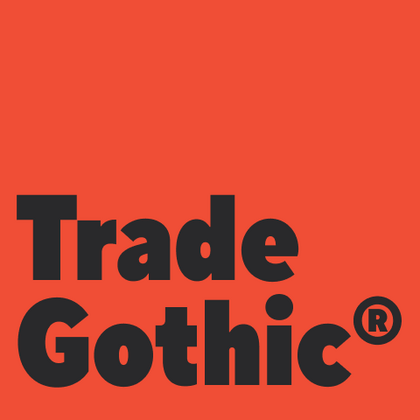
Fonts similar to Trade Gothic
In the TypeType collection, you’ll find professional fonts that can be an excellent alternative to Trade Gothic® for various design projects. Trade Gothic® is known for its functionality, and our designs provide the same level of quality and practicality. We created these fonts as independent products that meet modern typography standards. For corporate branding, publishing, or interface design, we have the ideal solution. All fonts are designed with attention to detail and are ready for professional use.
If you are tired of overused typefaces and are looking for fonts similar to Trade Gothic, check out our best free-to-try Trade Gothic alternatives, which have similar characteristics as well as new, unique design features. Some of the fonts belong to the same type category, and others are suitable for the same tasks or have similar traits but stand out for their distinct details or proportions.
Find a great Trade Gothic replacement font and try to recreate a similar mood and capture the feeling you aim for by using it in your designs. Each font presented on this page is a twin of the Trade Gothic font, practically identical to it.
TT Severs is a geometric sans serif with emphasized elements of internal brackets. The main visual feature of TT Severs is the unusual form of internal ovals.
TT Fellows is a humanist sans serif with a mechanical touch.
A technological font family for game design
TT Norms Condensed continues to develop the ideas of neutrality and versatility stemming from our bestselling TT Norms.
TT Backwards Sans is a narrow grotesque, which takes us back to the book design of late 70s and early 80s with its ductile characters.
TT Knickerbockers Grotesk is a narrow contrast sans serif with characteristic elements sending us back to the 19th century in New York.
TT Corals is a modern humanistic sans serif which has many typical traits of the beginning of the 20th century. For an increased functionality of the font family, we`ve created 6 styles of various weights.
TT Octas is a narrowly proportioned font family built upon the principle of octagonal forms: all circles in this typeface are actually octagons. Thanks to small serifs, TT Octas has a vintage character to it.